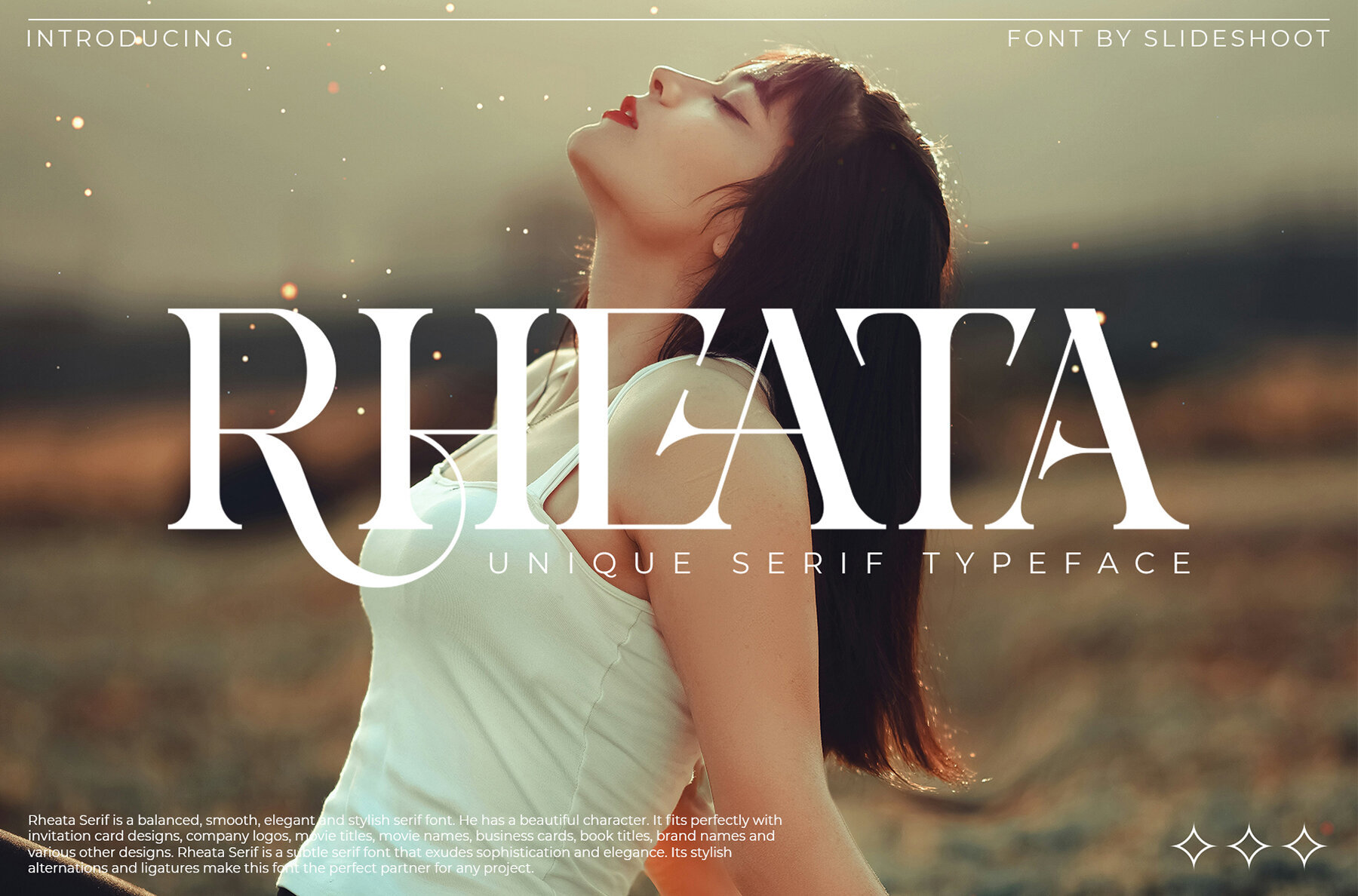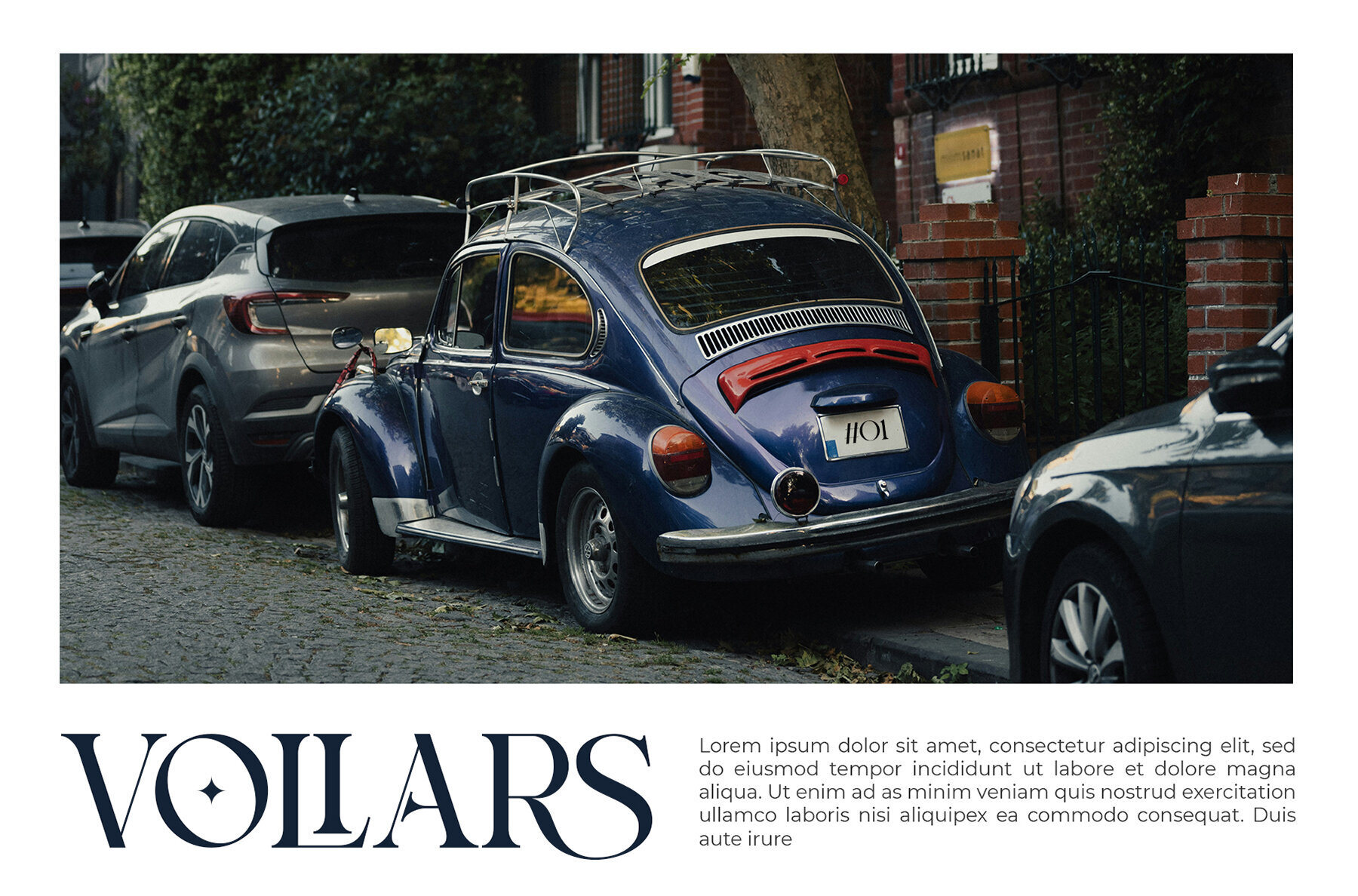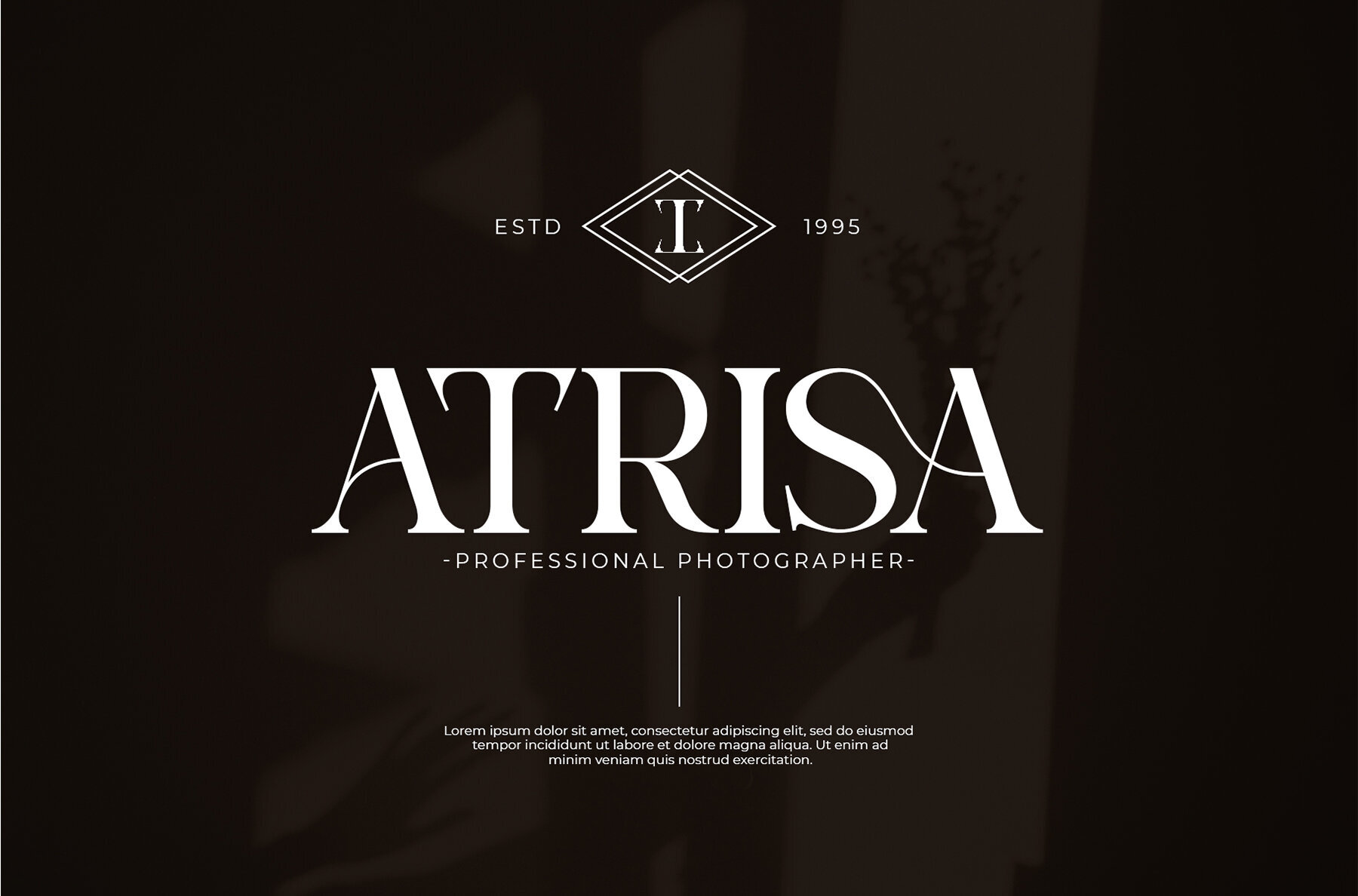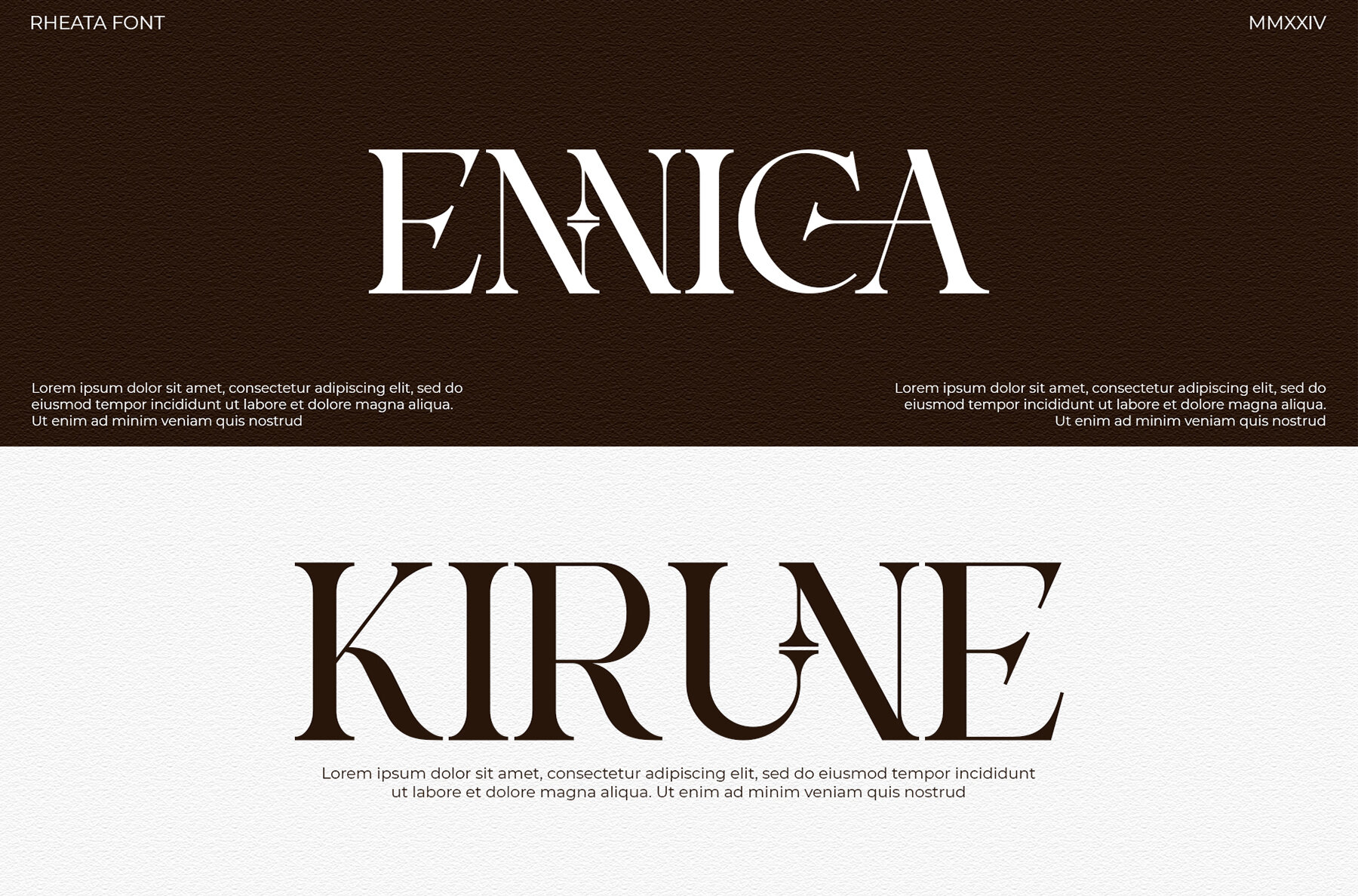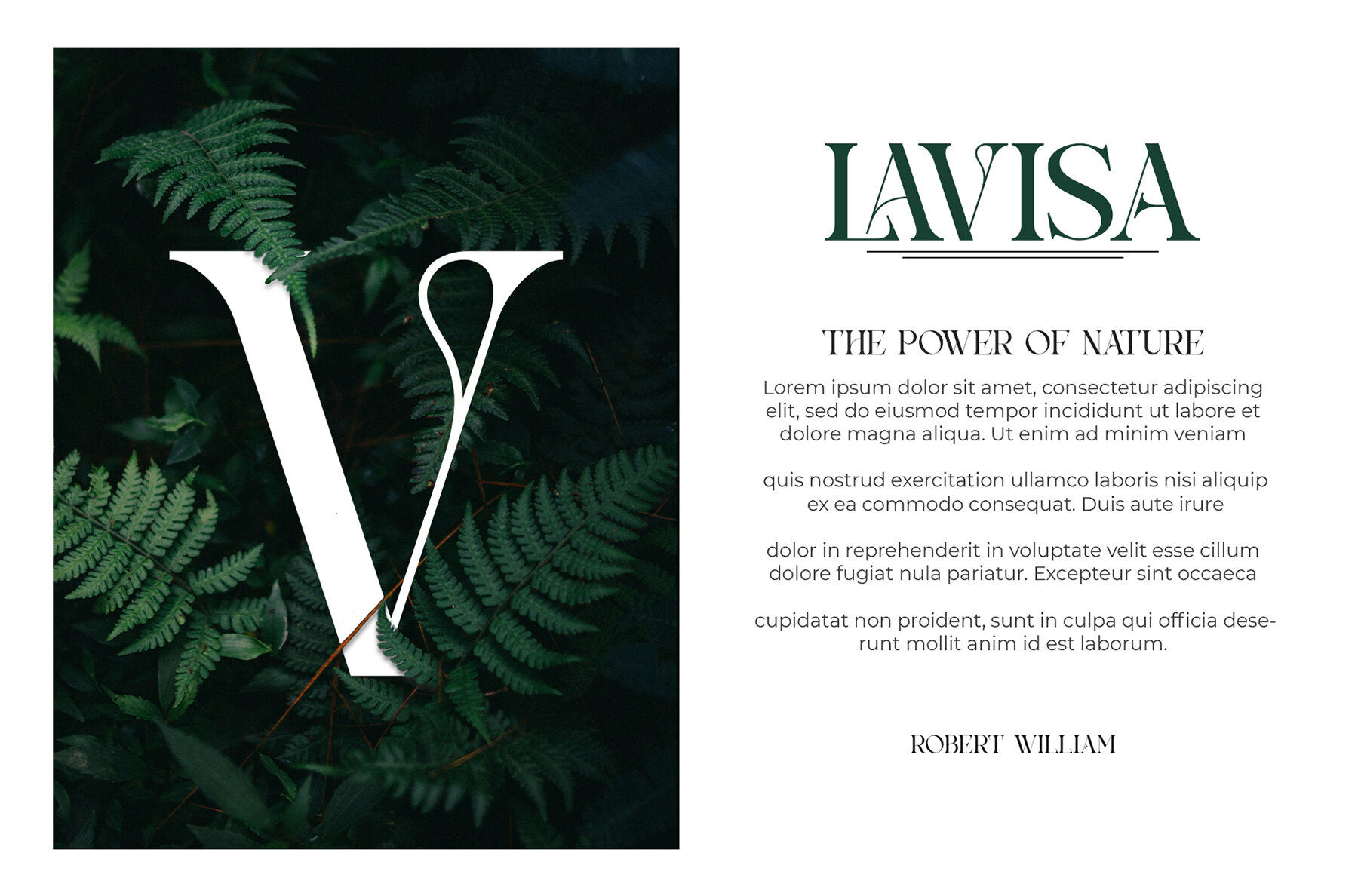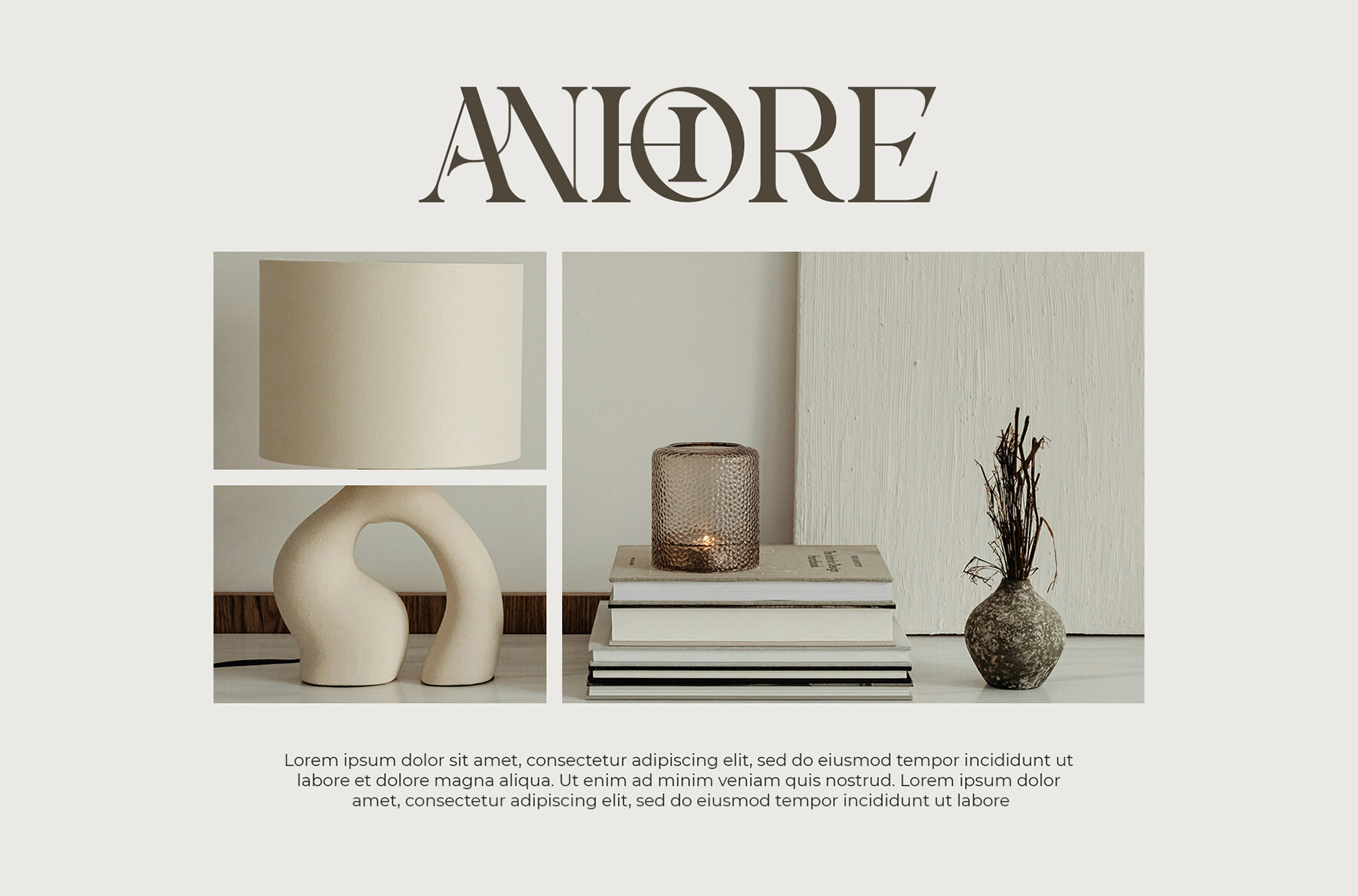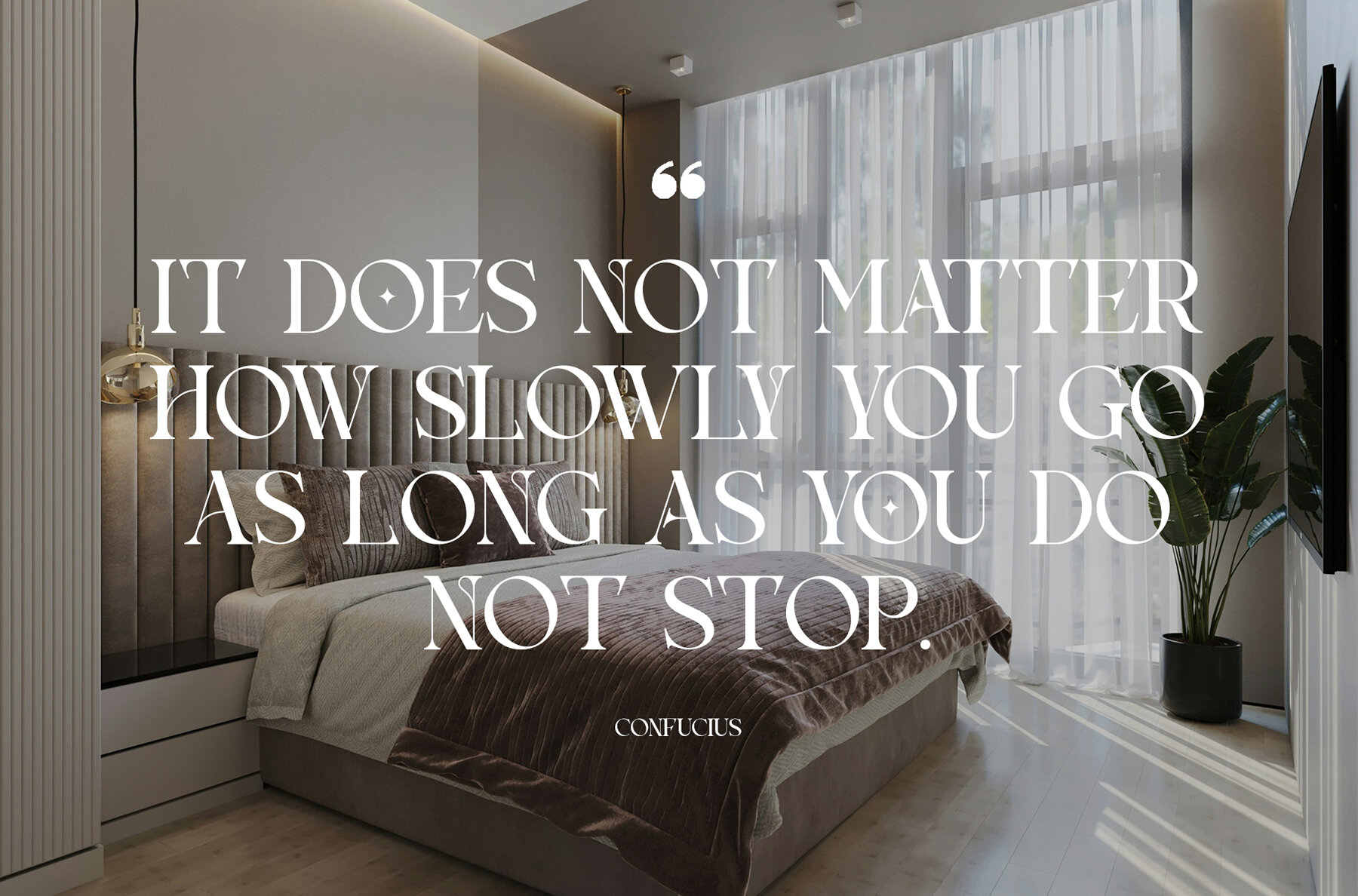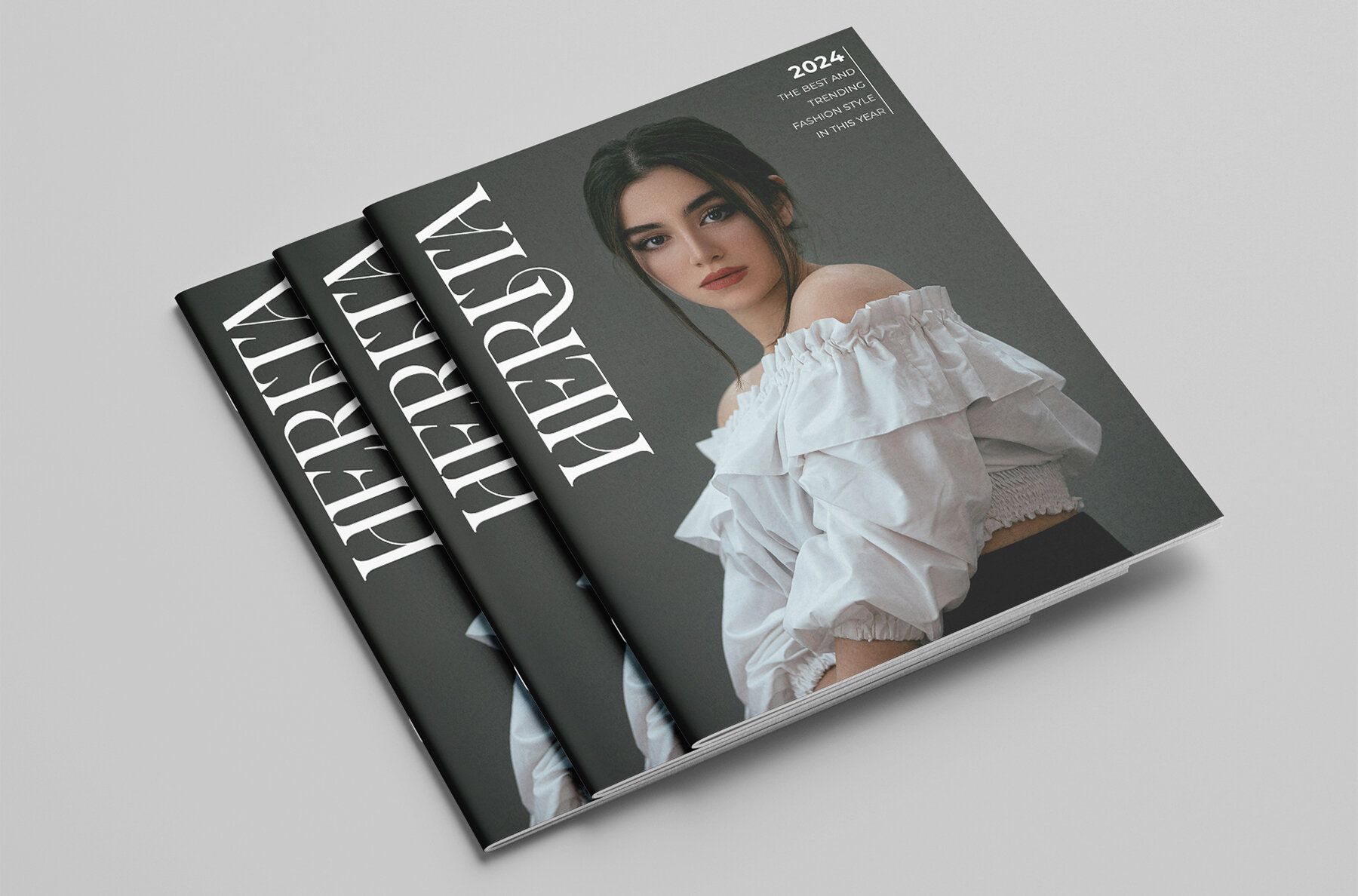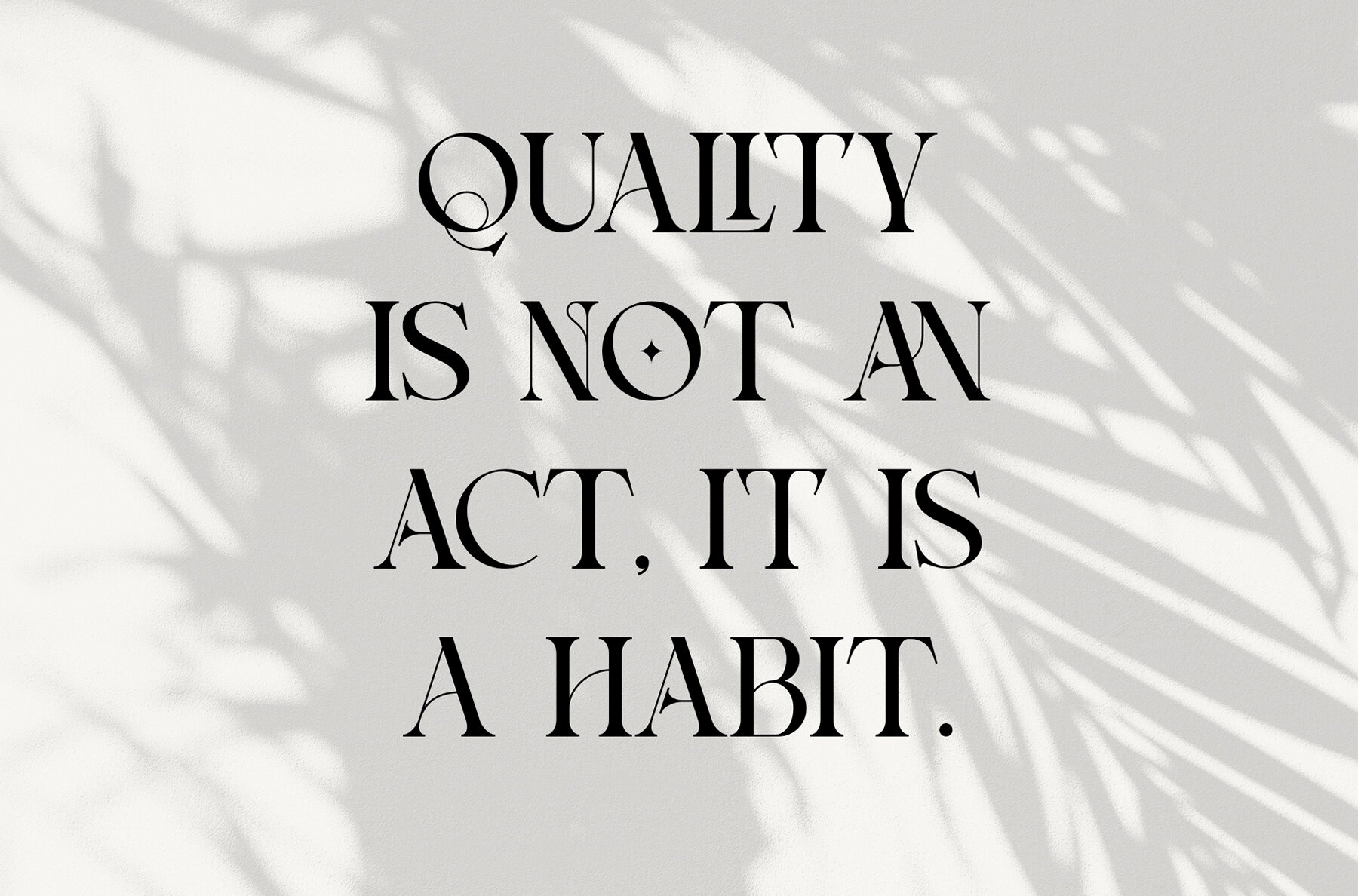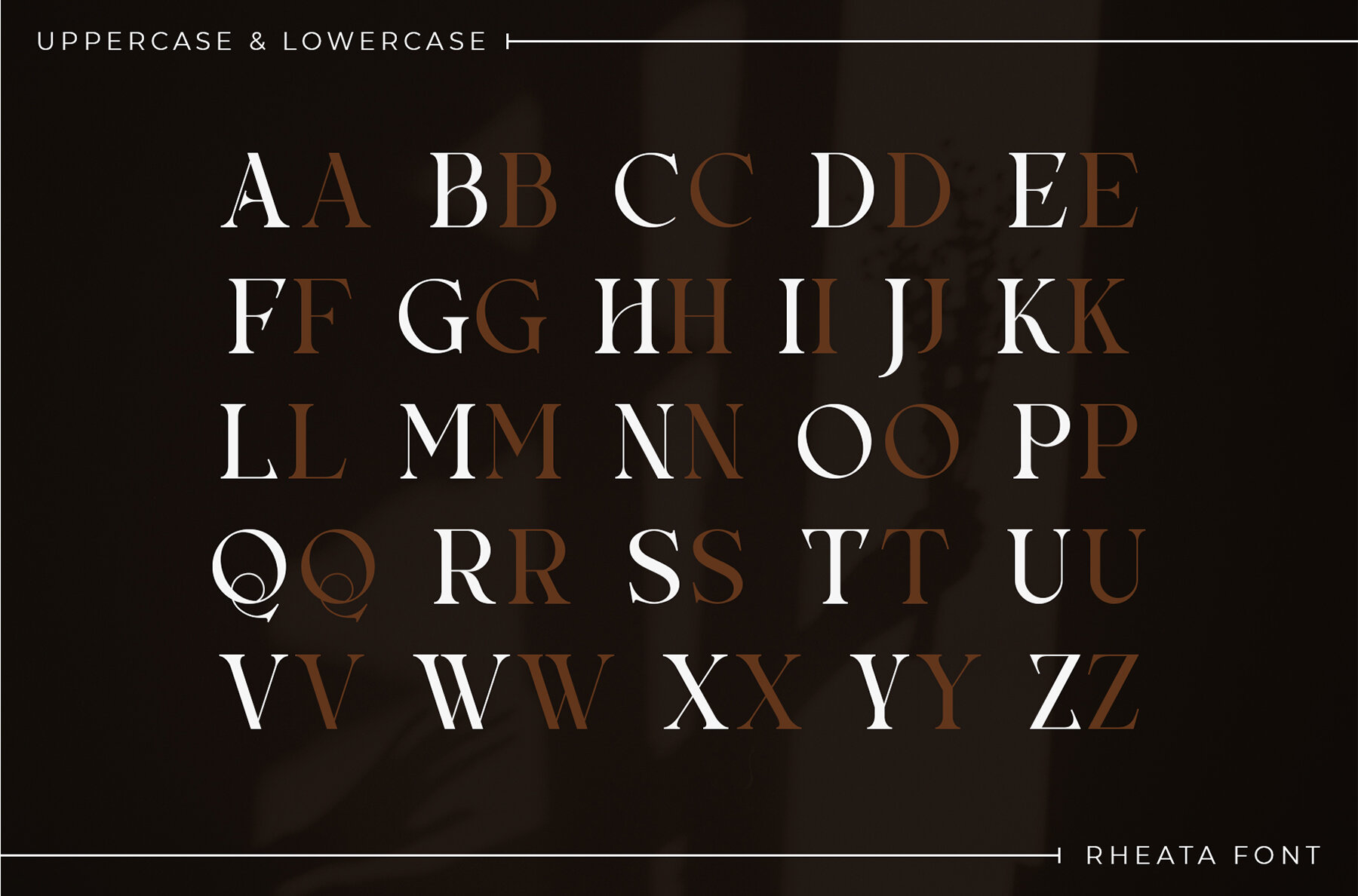
Rheata Font
Rheata
Rheata Serif is a balanced, smooth, elegant and stylish serif font. He has a beautiful character. It fits perfectly with invitation card designs, company logos, movie titles, movie names, business cards, book titles, brand names and various other designs. Rheata Serif is a subtle serif font that exudes sophistication and elegance. Its stylish alternations and ligatures make this font the perfect partner for any project. FEATURE: